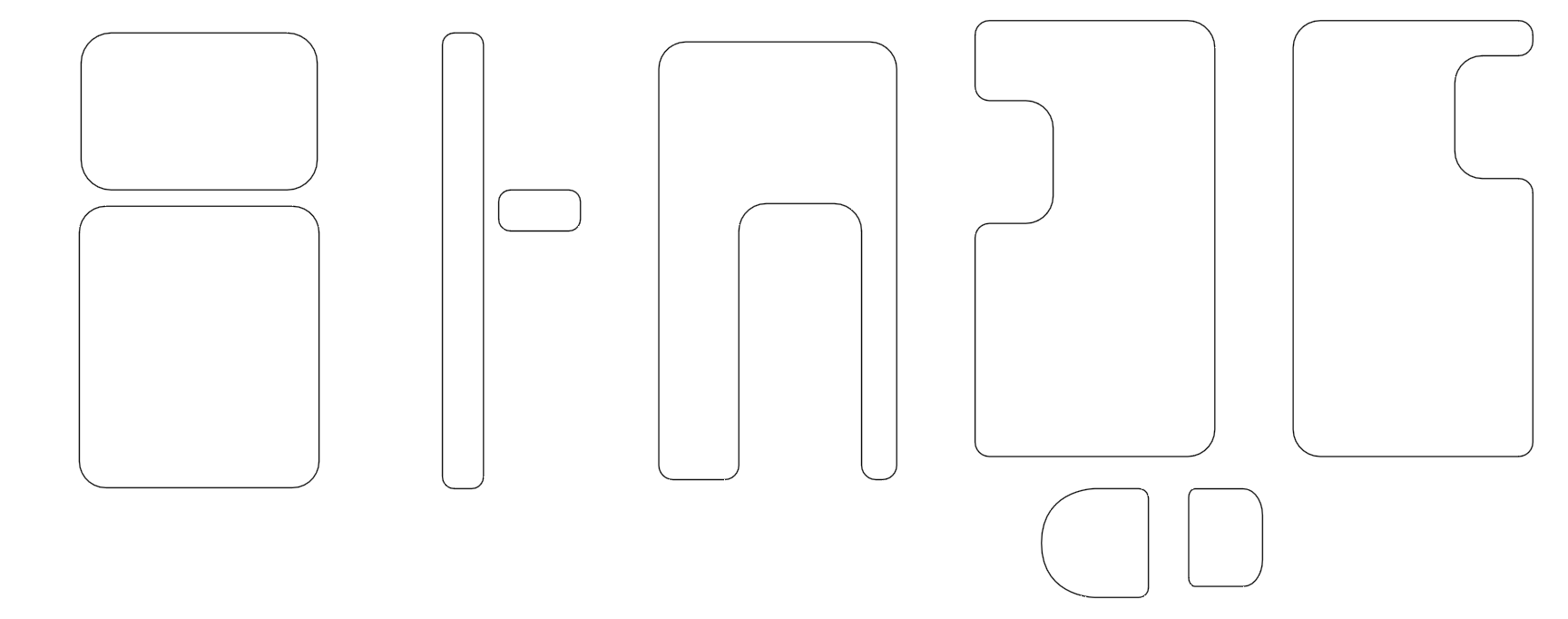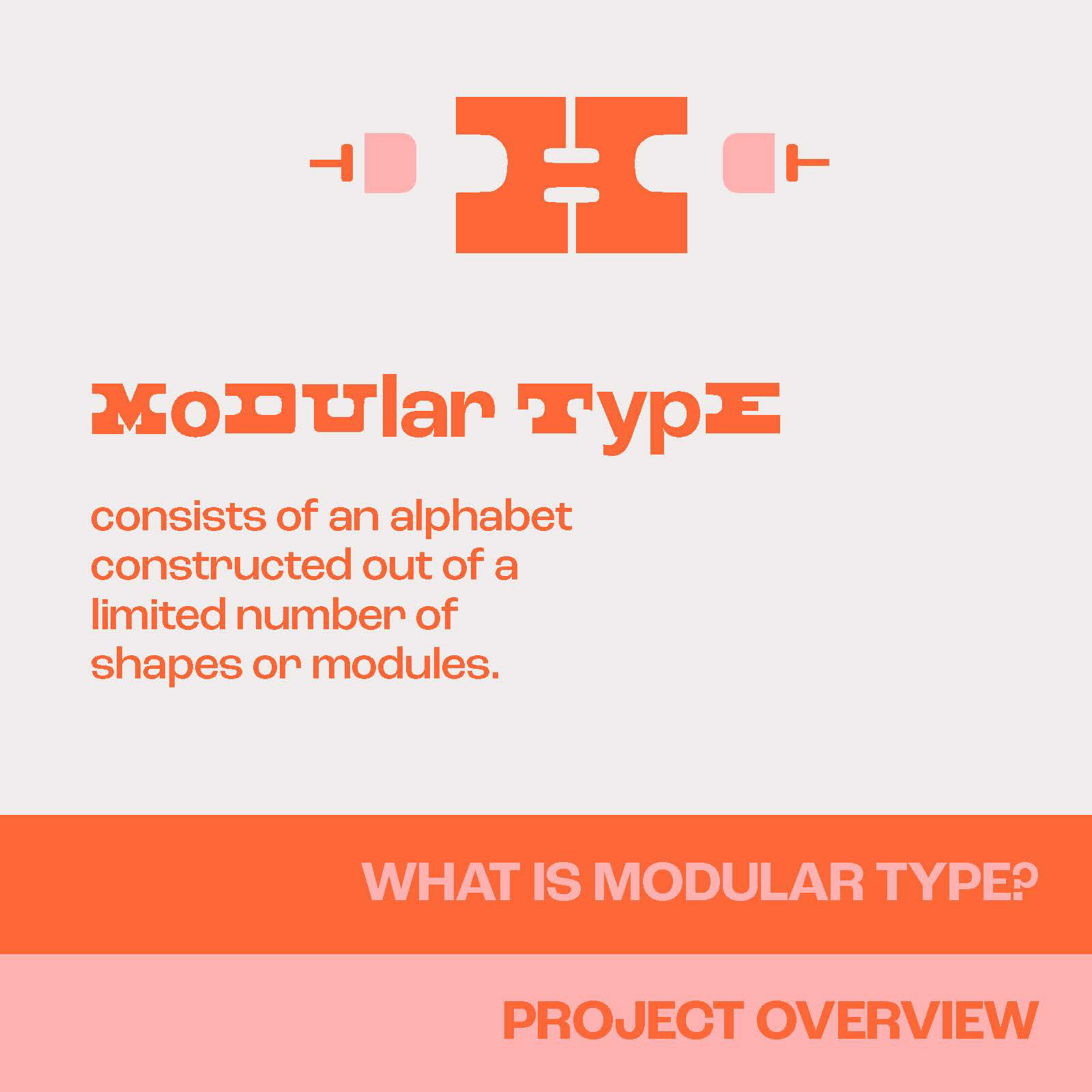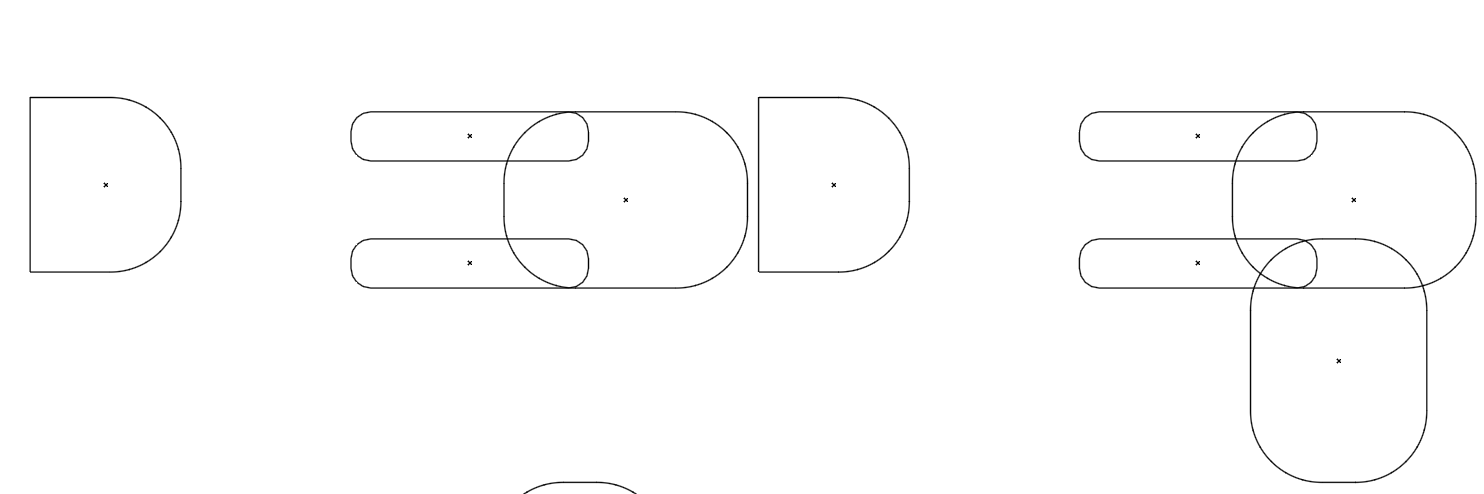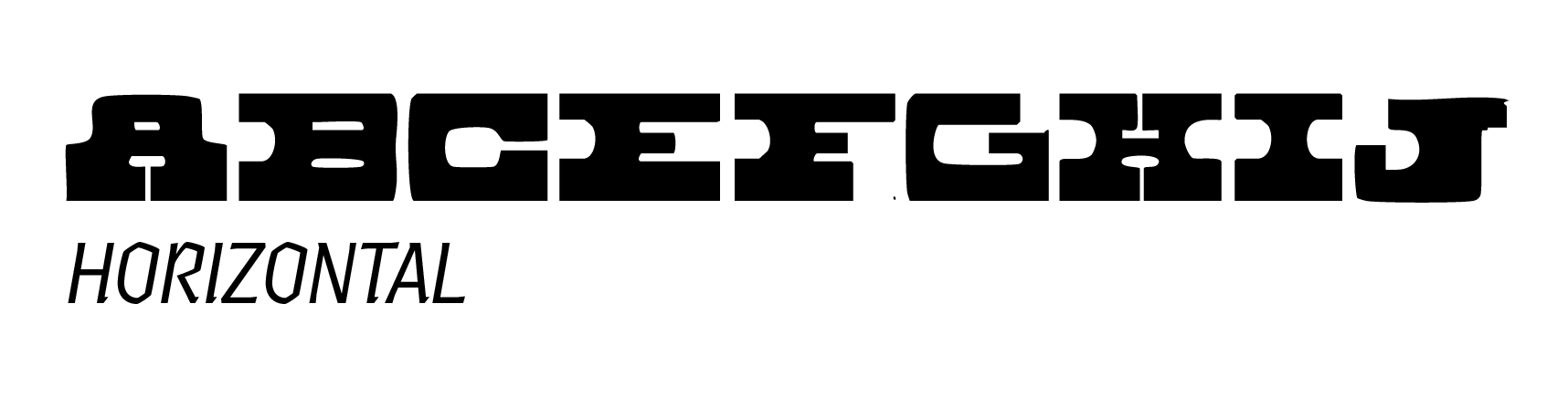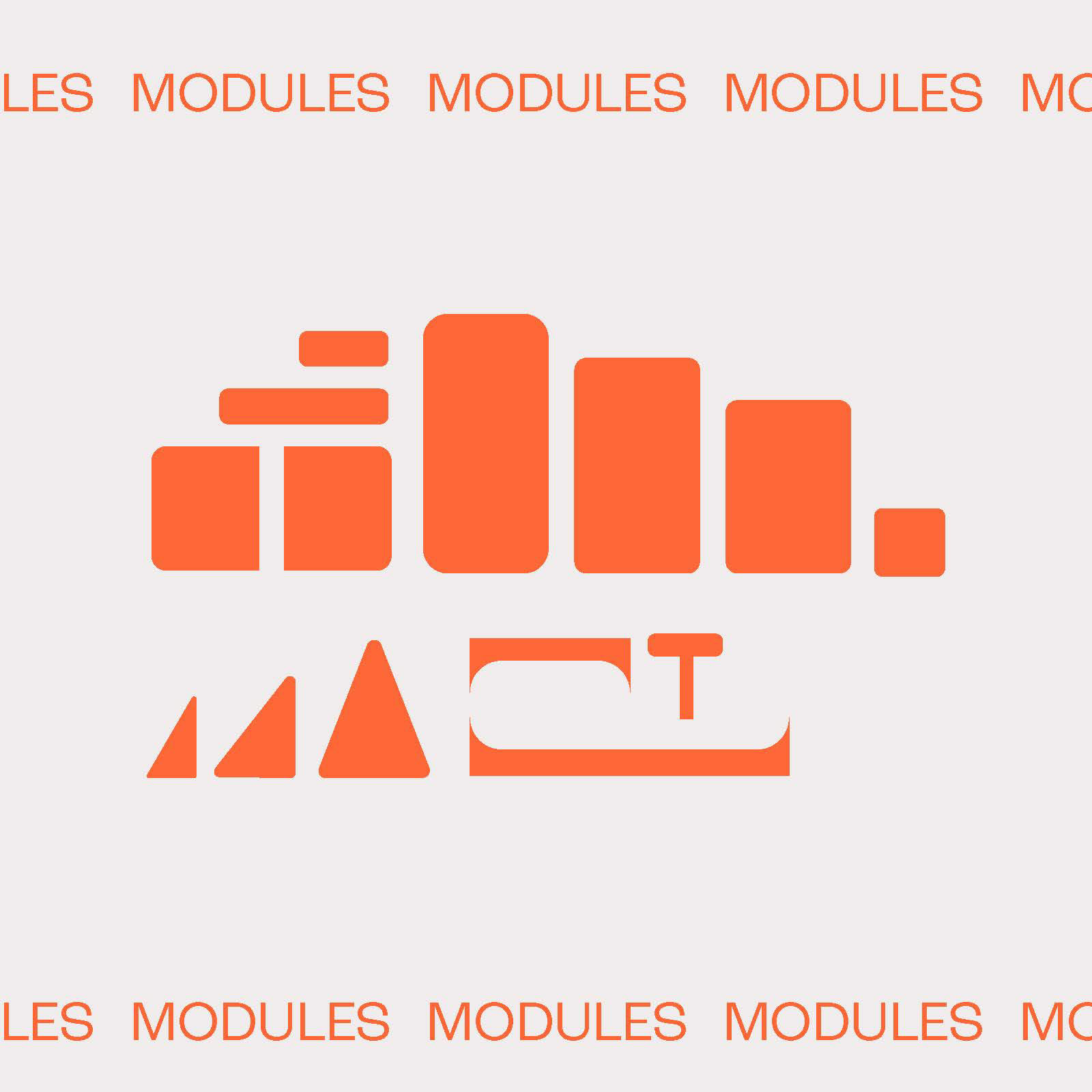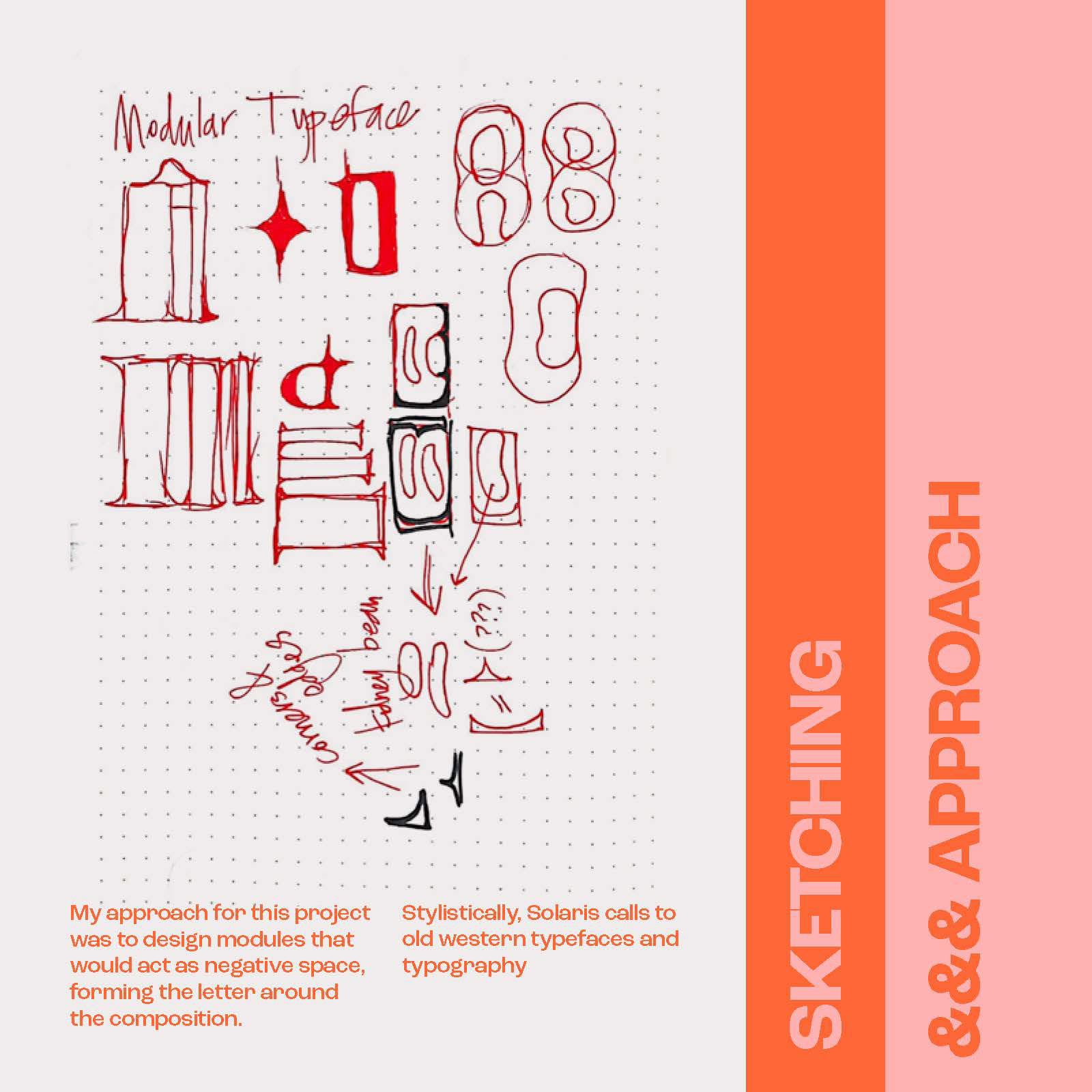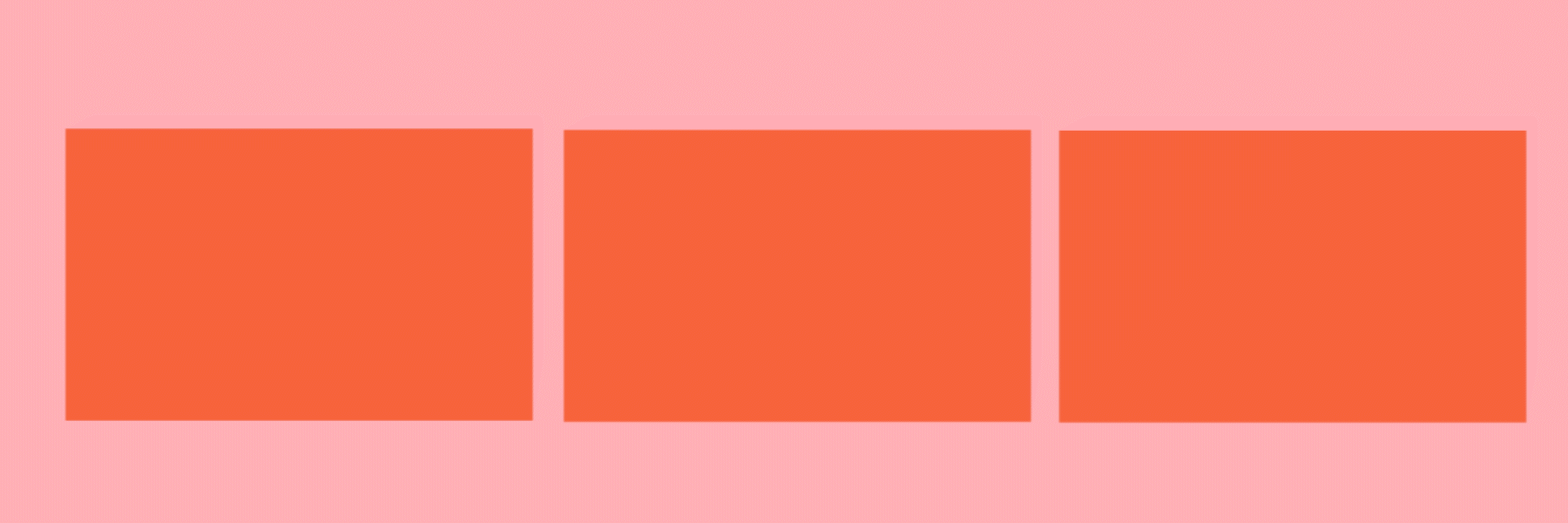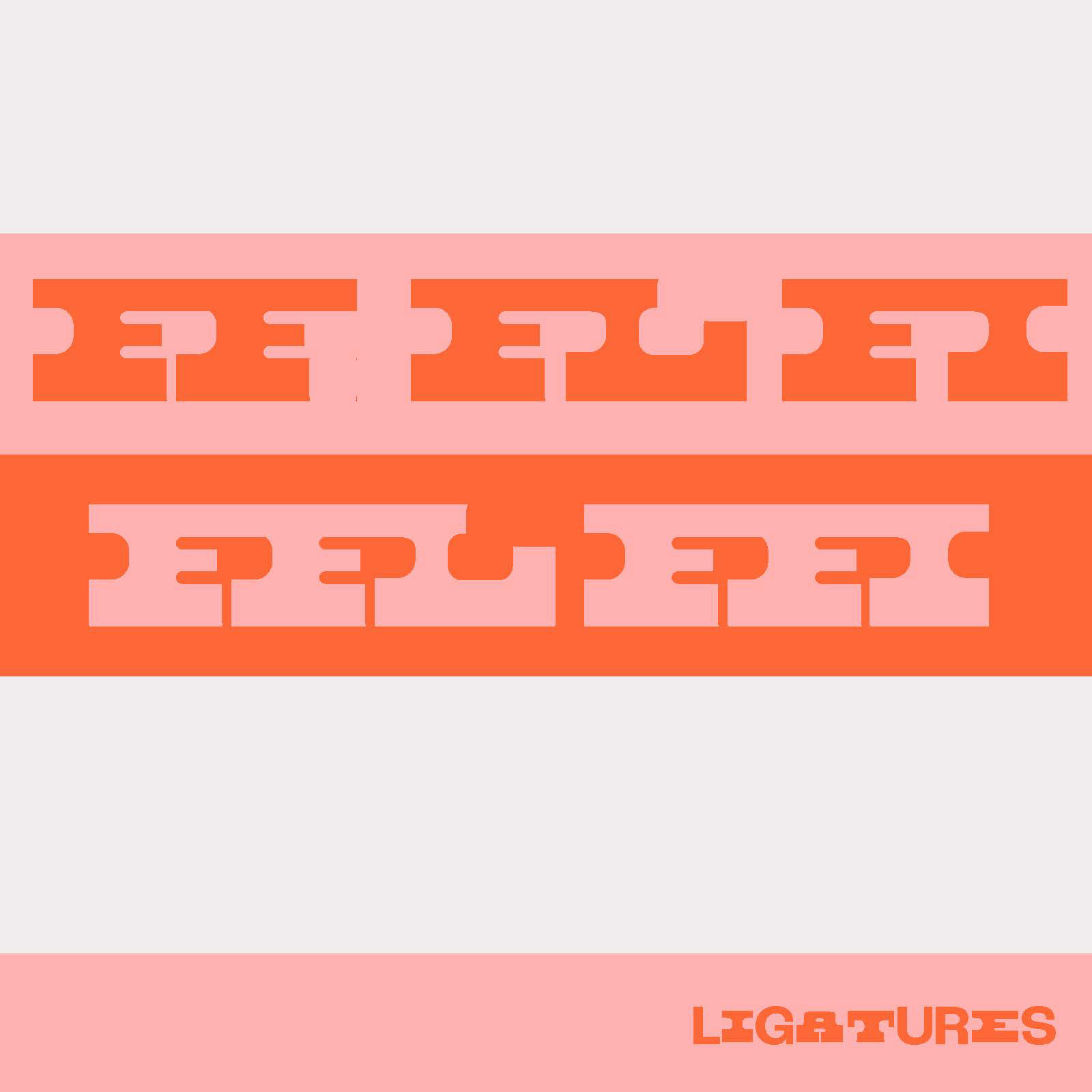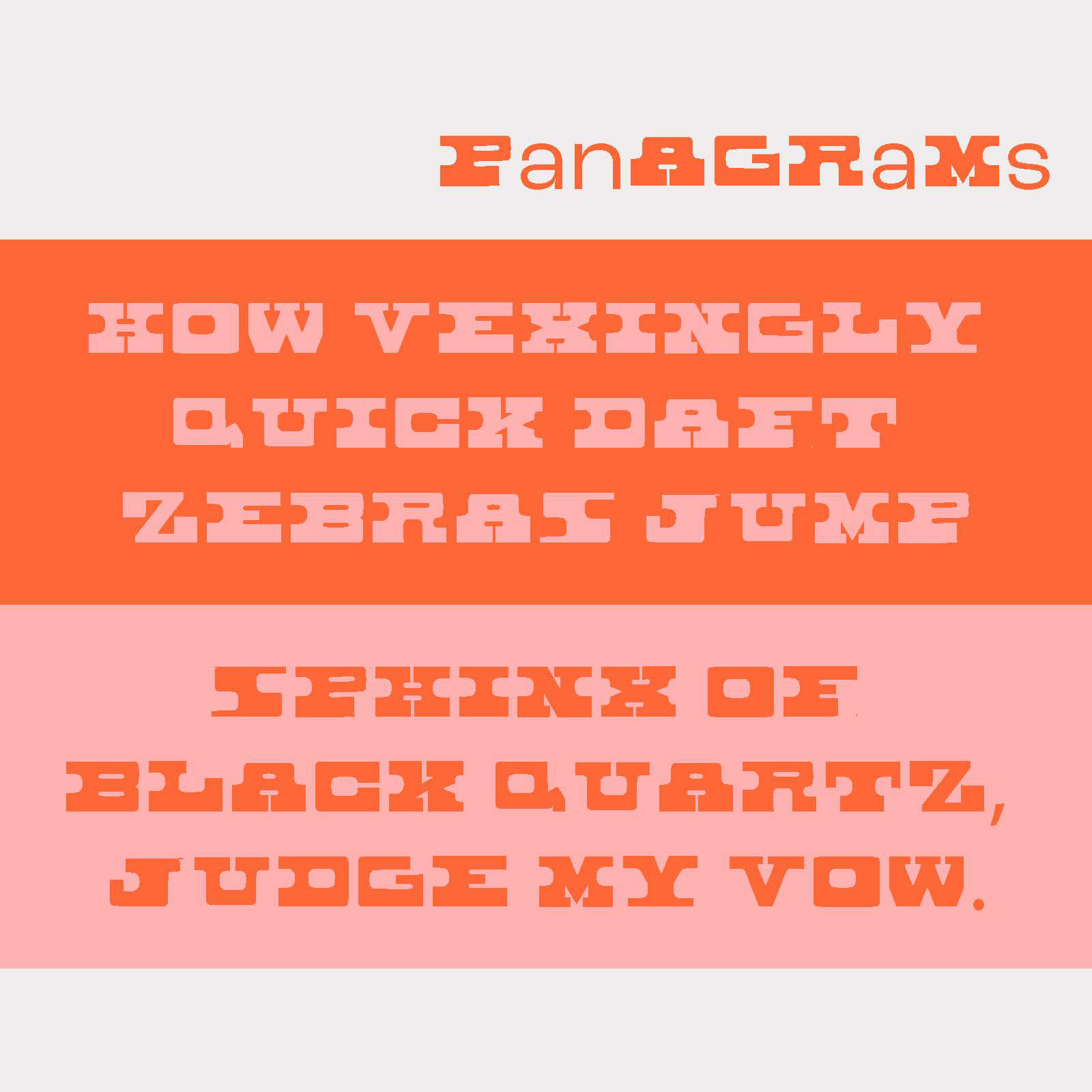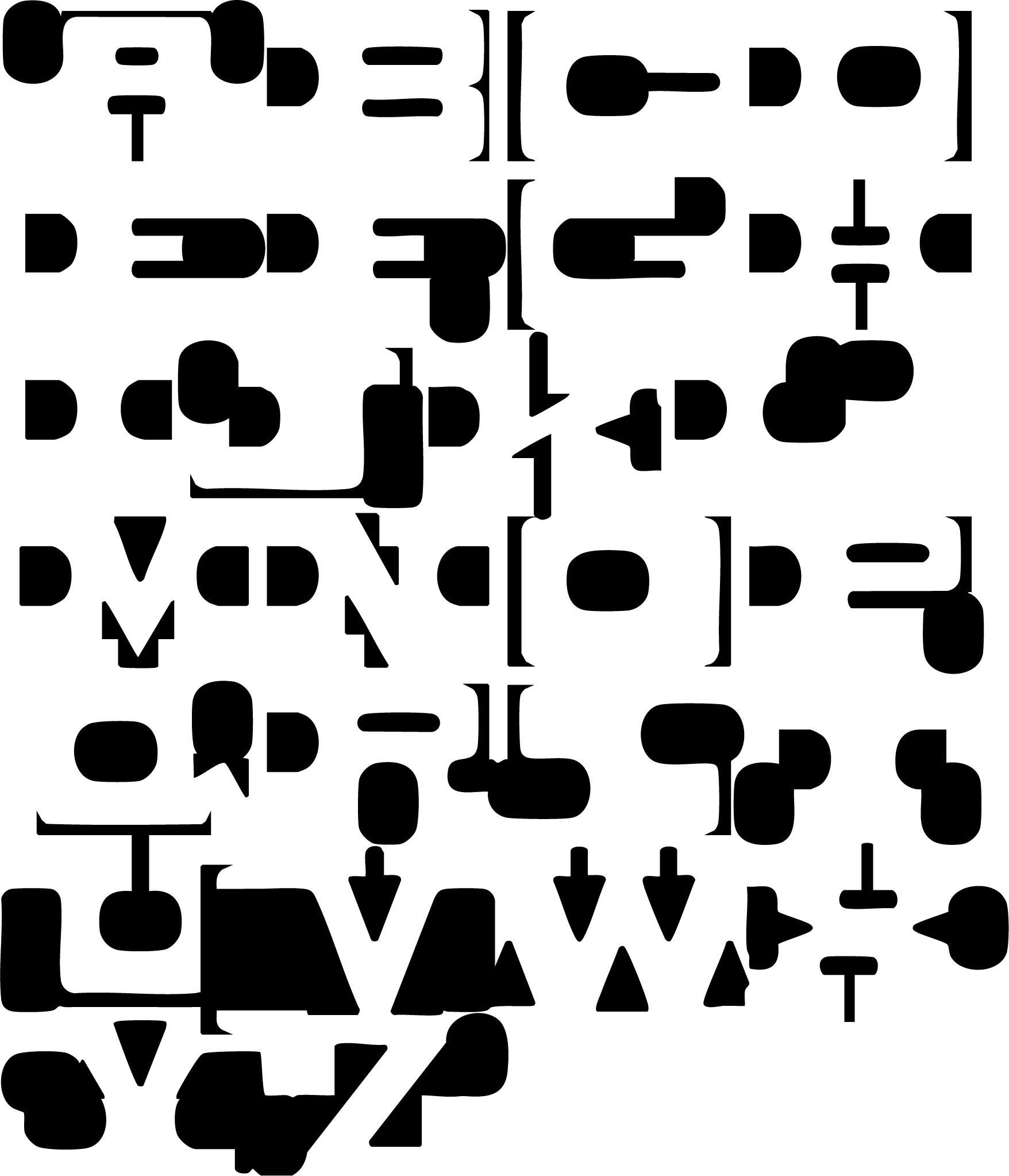
I knew the mechanic I wanted from the beginning. I wanted to create modules to function as ‘cutouts’ and embrace negative space (a huge part of my design school journey) rather than building up with the modules, you carve away.
As far as stylization, I wanted a retrofuturistic western inspired typeface. The words that I kept coming back to were: space cowboy.
Early Fabrication
The ‘base’ module went through several proportional adjustments.
early module systems 1
early module systems 2
Final Modules & Inverted Alphabet
Final Product